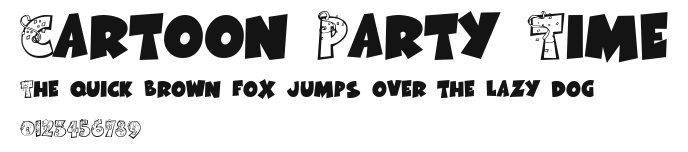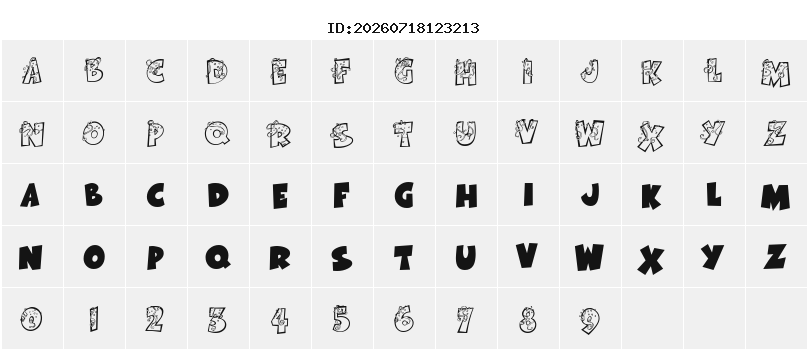
• Font Name: Cartoon Party Time
• Full Font Name: Cartoon Party Time
About Cartoon Party Time.ttf
Cartoon Party Time.ttf is a modern, elegant sans-serif font designed for ultimate readability and visual harmony. Perfect for branding, headlines, web design, and print materials.